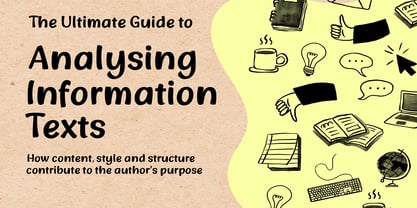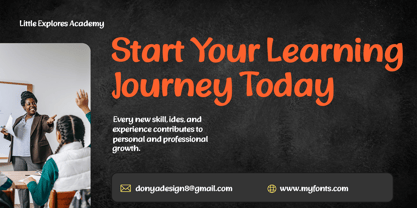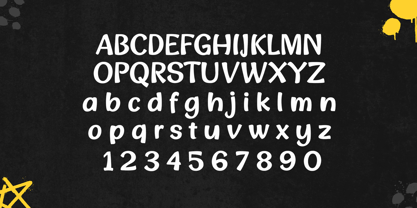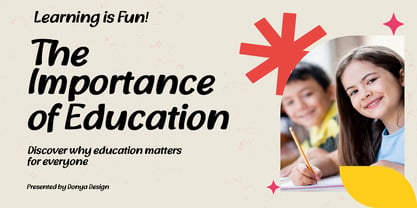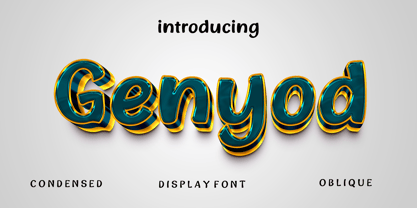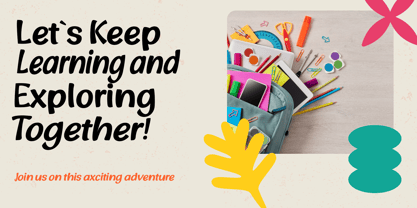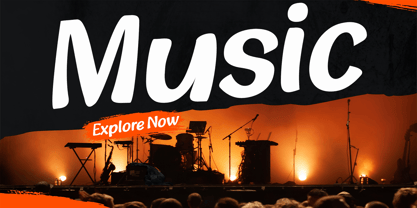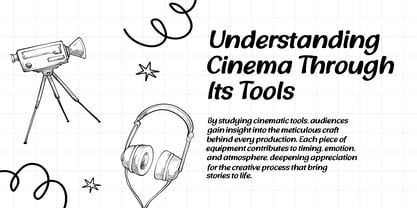
Genyod
by DonyaDesign
The Genyod Font Family was designed by Teuku Muslyawan and published by DonyaDesign. Genyod contains 5 styles and family package options. More about this family
Whether you are designing greeting cards, invitations, educational materials, planners, journals, social media graphics, product packaging, logos, or branding assets, Genyod adds a friendly, human touch that evokes warmth instantly. It is also an excellent choice for printable worksheets, café menus, quotes, and children's products, where an authentic handwritten look enhances engagement and relatability. Unlike many script fonts that feature intricate flourishes or excessive decorative strokes, Genyod emphasizes clear, natural letterforms that maintain legibility across various sizes. The font includes uppercase and lowercase letters, numbers, punctuation, and a wide range of accented characters, making it suitable for multiple languages. Genyod pairs beautifully with clean sans-serif typefaces for a modern layout or with classic serif fonts to create an elegant contrast. Its timeless handwritten style, excellent readability, and versatile design make it a reliable choice for projects that prioritize warmth, authenticity, and a personal touch.
Designers: Teuku Muslyawan
Foundry: DonyaDesign